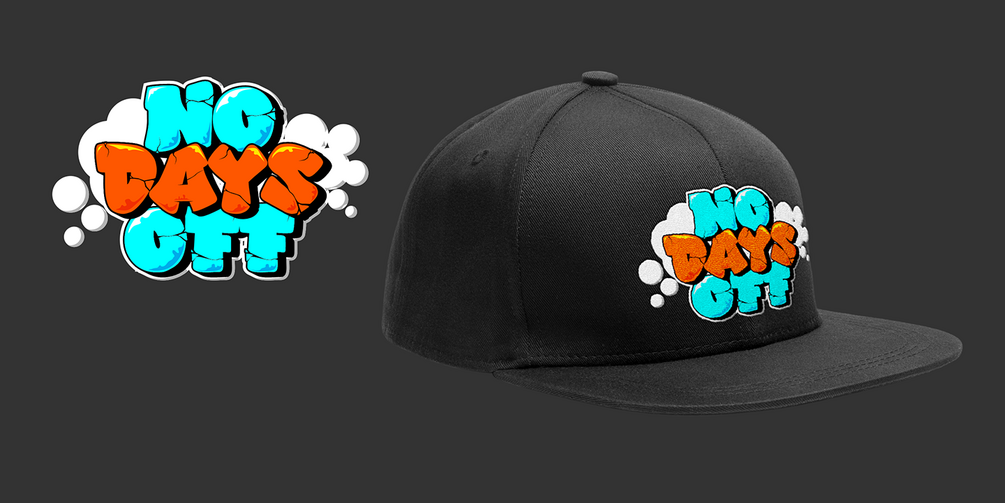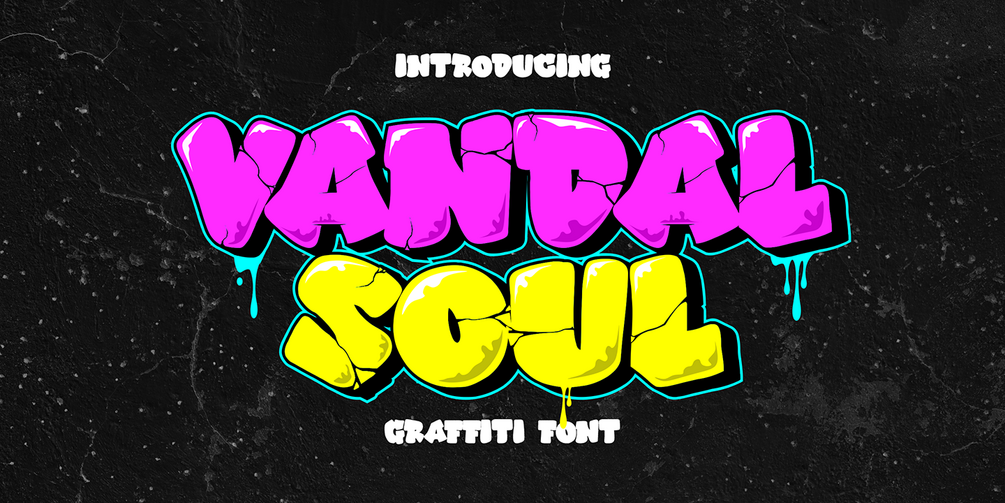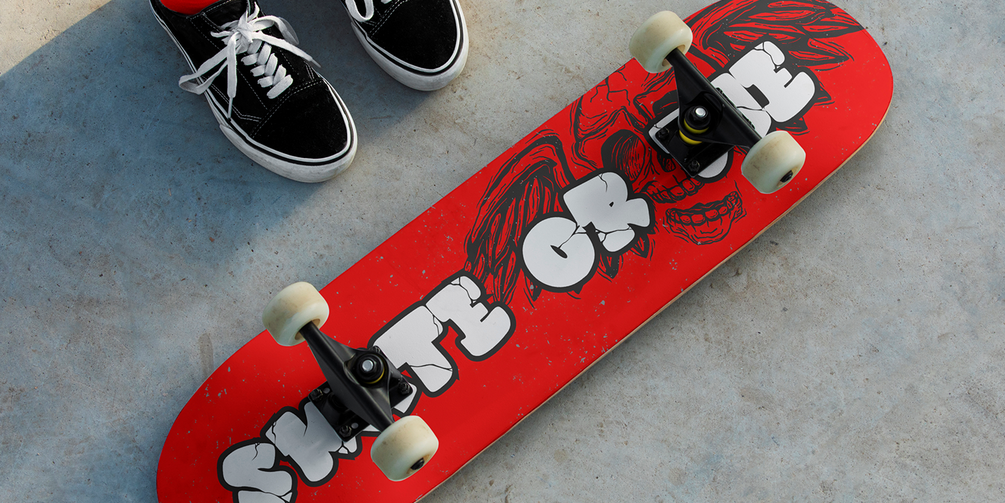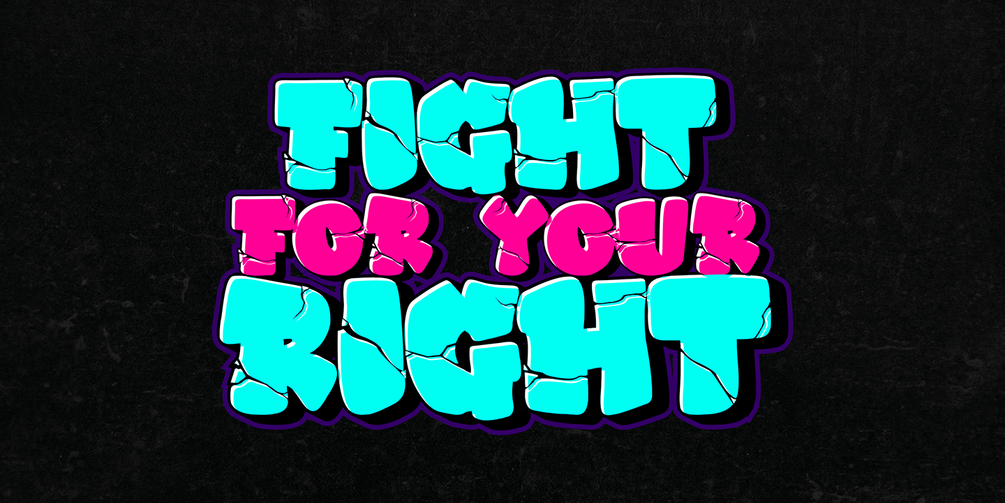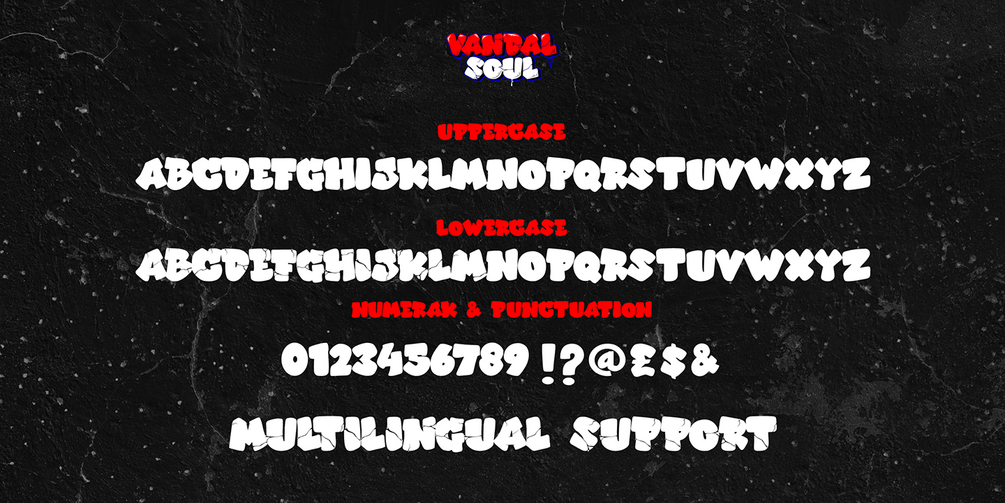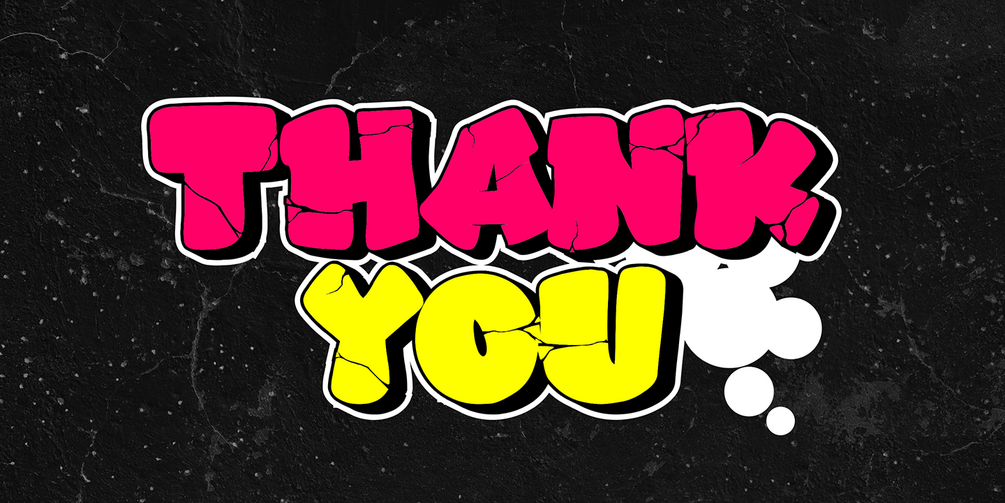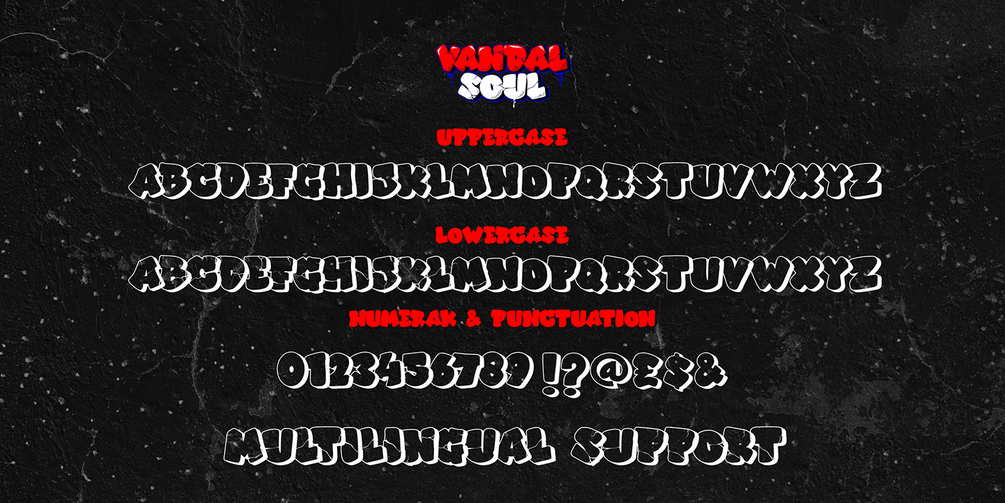
Vandal Soul is a bold and expressive 3D layered graffiti font featuring unique cracked decorations on each character. This font captures the raw energy of street art with its rugged and rebellious aesthetic, making it perfect for urban-themed designs.
With its layered styles, Vandal Soul allows you to create depth and dimension, making your text stand out with a striking street-style effect. Ideal for posters, streetwear branding, hip-hop projects, album covers, murals, and more, this font brings an authentic graffiti vibe to any creative work. If you're looking for a font that embodies the spirit of urban artistry with a dynamic and textured look, Vandal Soul is the perfect choice!
• Versatile for branding, headline, or printing product